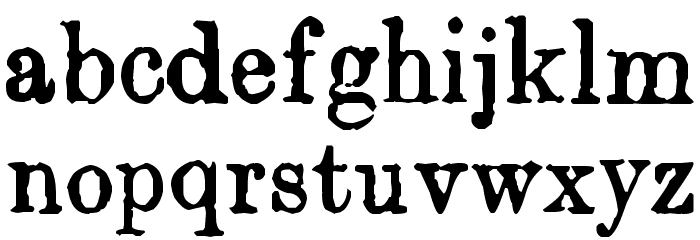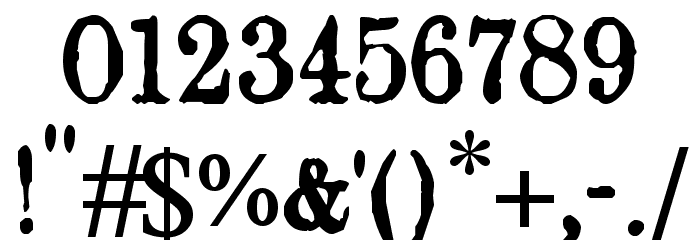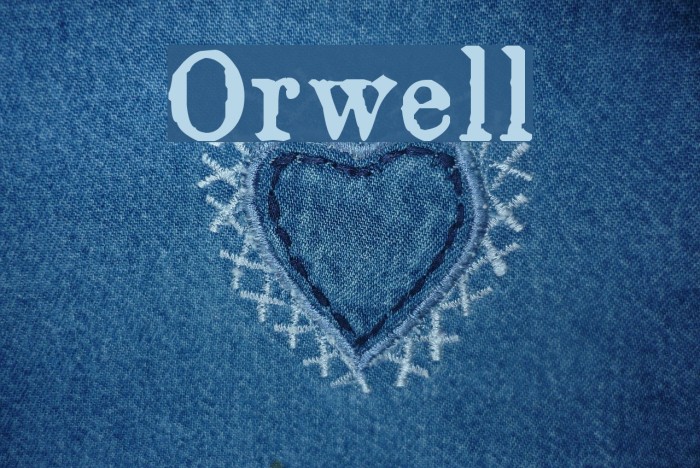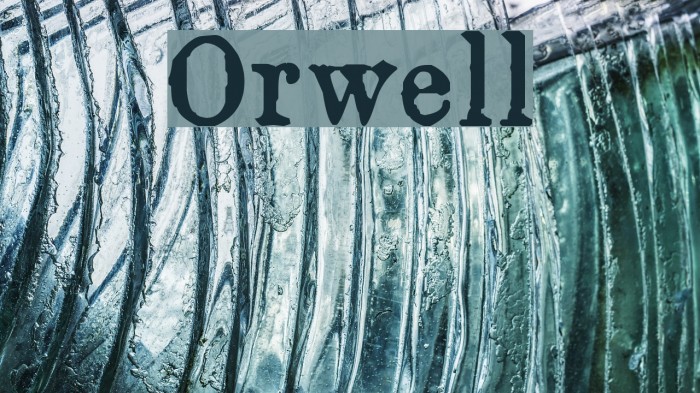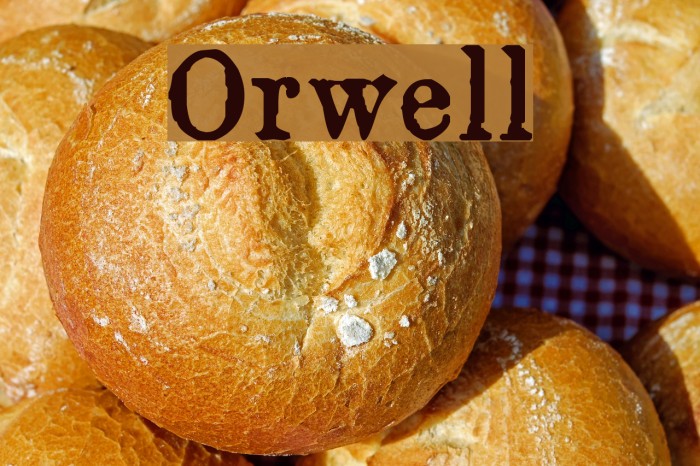
Orwell Font
This font features a distressed, vintage style with a rough, textured appearance that gives it a worn and aged look. The characters are bold and have a strong presence, with irregular edges and a slightly uneven baseline that adds to its rustic charm. The uppercase and lowercase letters maintain a consistent style, while the numerals and special characters follow suit with the same rugged aesthetic. This font is ideal for projects that require a touch of nostalgia or a handcrafted feel, making it perfect for designs that aim to evoke a sense of history or authenticity.
A distressed, vintage-style font with a rough, textured appearance.
- Proposed Projects: Ideal for vintage-themed posters, retro branding, rustic packaging, and historical book covers.
- Overall Style: Vintage